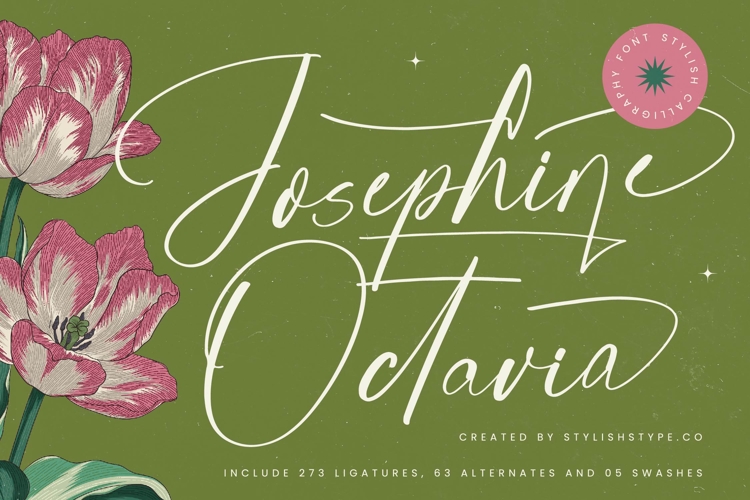
Josephine Octavia - Stylish Calligraphy Font
Discover the quintessential blend of elegance and authentic handcrafted charm with Font Josephine Octavia - Stylish Calligraphy Font Script. This exquisite script font embodies a sophisticated fluidity, meticulously designed to impart a touch of artistry to any project. Its sweeping strokes and delicate connections evoke a sense of timeless beauty, making every word a visual statement. Embrace the refined aesthetic that instantly elevates your design work, delivering an unparalleled impression of grace.
Unleash unparalleled creative freedom with the expansive features of Font Josephine Octavia - Stylish Calligraphy Font Script. Boasting an impressive collection of 273 ligatures, 63 alternates, and 5 swashes, this font provides an incredibly rich typographic palette. These robust options allow for endless customization, ensuring your text always appears distinctive and perfectly tailored. The fluid curves and high-contrast lines grant your typography a dynamic, captivating presence, standing out with sophisticated flair.
Expand your brand's reach with the exceptional global adaptability of this typeface. With its extensive multilingual support, Font Josephine Octavia - Stylish Calligraphy Font Script adapts seamlessly across global markets, making it incredibly versatile for international projects. This feature ensures your message retains its intended elegance and professionalism, regardless of language. It's the ideal choice for designers aiming for a cohesive and globally resonant visual identity.
Perfect for designs requiring a premium aesthetic, Font Josephine Octavia - Stylish Calligraphy Font Script is the ultimate choice for luxury branding, wedding invitations, sophisticated packaging design, and editorial layouts. Its inherent grace also makes it exceptional for fashion branding, greeting cards, and any project demanding an exquisite touch. Let this stylish calligraphy font transform your concepts into visually arresting realities, leaving a memorable impression every time.